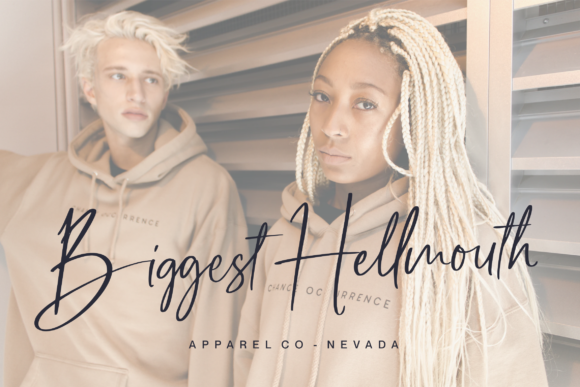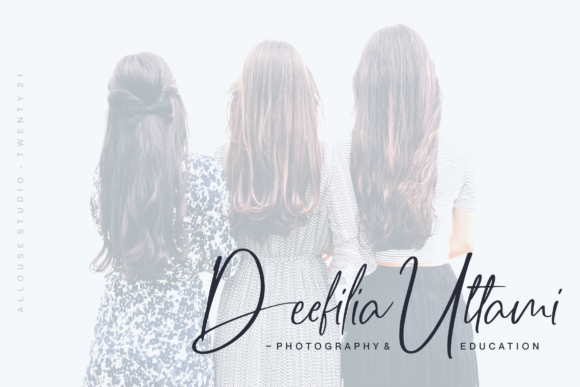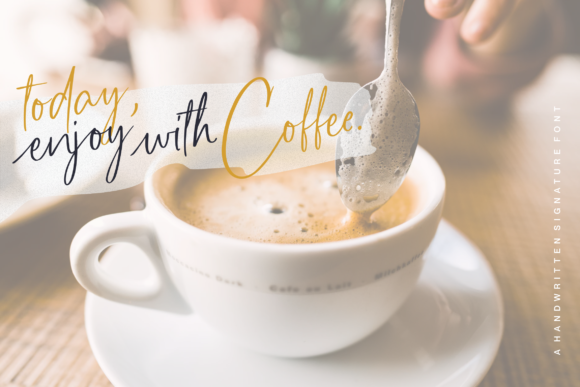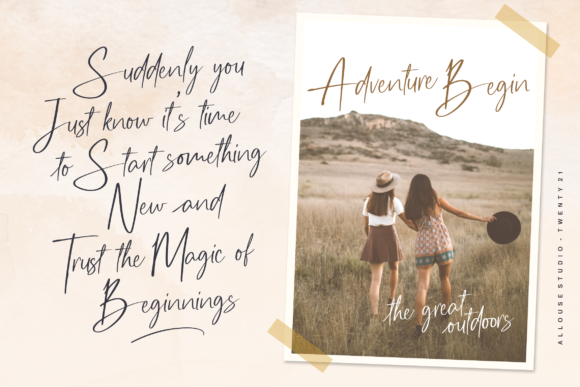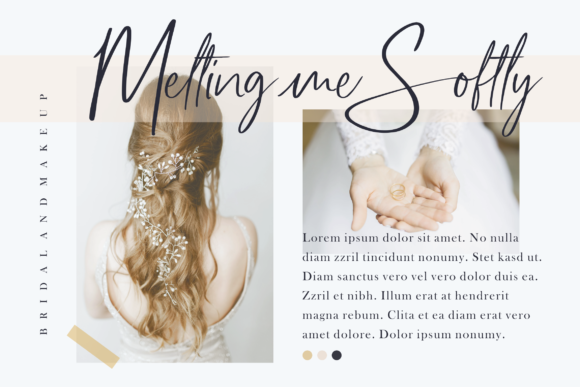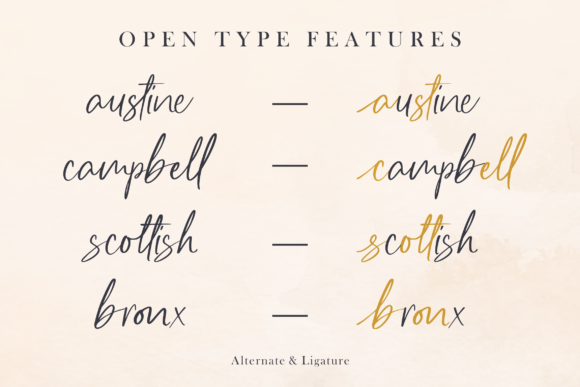
Introducing Heartcraft Font: Elevate Your Designs with Elegance and Sophistication
Are you a designer or crafter looking for a font that adds a touch of elegance and natural feel to your projects? Look no further than Heartcraft Font, a beautiful and slim script font designed to bring a handwritten touch to your work. In this article, we’ll dive into the features and benefits of Heartcraft Font, and explore how it can elevate your designs to the next level.
What is Heartcraft Font?
Heartcraft Font is a stunning script font that boasts a slender and refined appearance, perfect for projects that require a sense of sophistication and refinement. Its elegant strokes and natural flow make it an ideal choice for designers and crafters seeking to add a personal touch to their work.
Key Features of Heartcraft Font
- Elegant and Slim Design: Heartcraft Font features a sleek and slender design that exudes elegance and sophistication.
- Handwritten Touch: With its natural flow and handwritten feel, Heartcraft Font adds a personal touch to any project.
- Natural Feel: The font’s organic and fluid strokes create a sense of warmth and approachability.
- Versatile: Heartcraft Font is perfect for a wide range of projects, from branding and packaging to wedding invitations and crafts.
Benefits of Using Heartcraft Font
So, why choose Heartcraft Font for your next project? Here are just a few benefits of using this beautiful script font:
- Adds a Personal Touch: Heartcraft Font’s handwritten feel and natural flow make it perfect for adding a personal touch to your designs.
- Enhances Brand Identity: With its elegant and sophisticated design, Heartcraft Font can help elevate your brand’s identity and create a lasting impression.
- Easy to Read: Despite its slender design, Heartcraft Font is easy to read and understand, making it perfect for body text and headings.
- Customizable: Heartcraft Font can be easily customized to fit your project’s specific needs, from adjusting font sizes to changing colors.
Who Can Benefit from Heartcraft Font?
Heartcraft Font is perfect for a wide range of designers and crafters, including:
- Graphic Designers: Add a touch of elegance and sophistication to your branding, packaging, and marketing materials.
- Wedding Planners and Stylists: Create beautiful and romantic wedding invitations, stationery, and decorations.
- Crafters and Artists: Add a personal touch to your handmade crafts, artwork, and DIY projects.
- Stationery and Journal Designers: Create stunning and unique stationery, journals, and notebooks.
In conclusion, Heartcraft Font is a beautiful and elegant script font that can add a touch of sophistication and natural feel to your designs. With its slender design, handwritten feel, and versatile nature, it’s perfect for a wide range of projects and applications. Whether you’re a designer, crafter, or artist, Heartcraft Font is sure to become a valuable addition to your font collection.